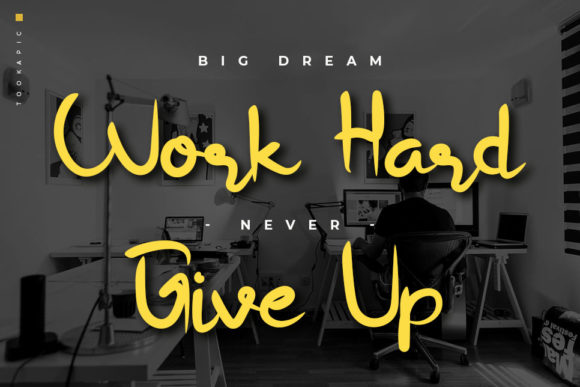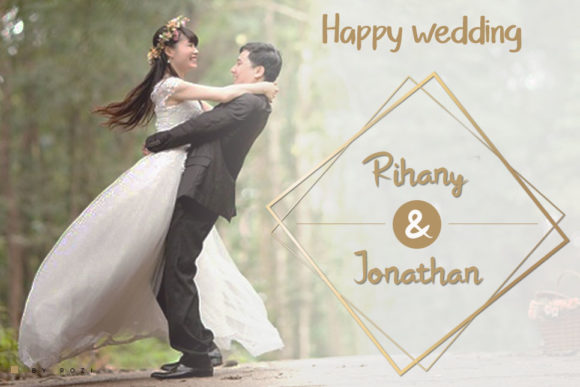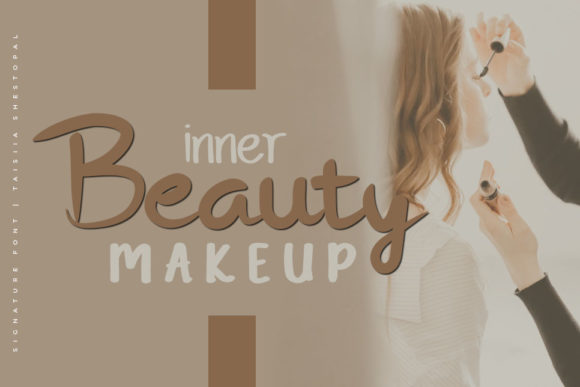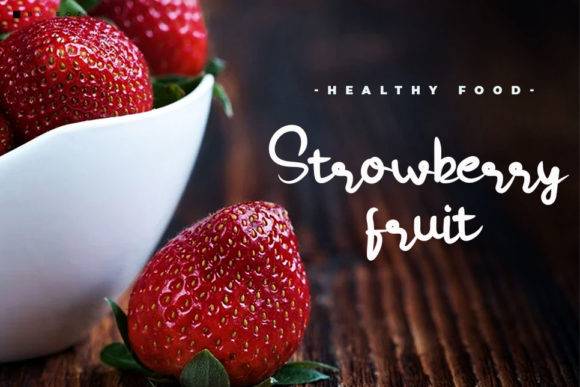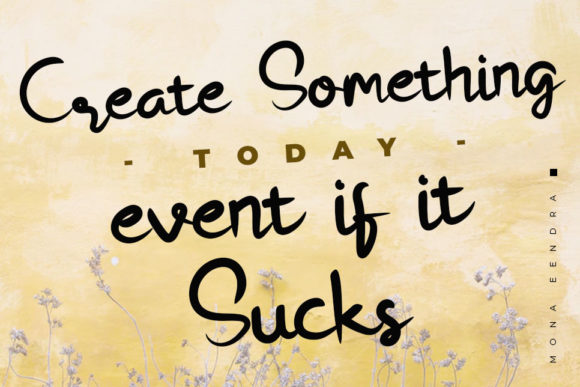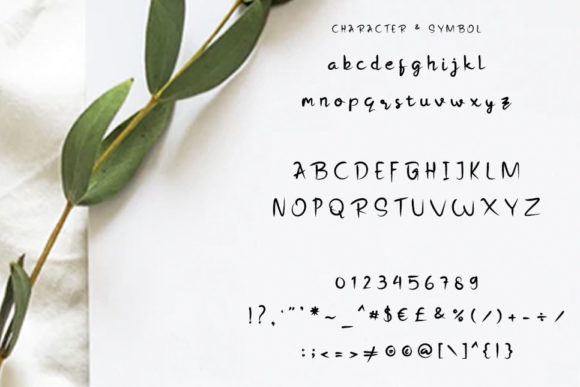
The Magic of Beautiful Typography
Have you ever stared at a beautiful piece of calligraphy, mesmerized by the flowing lines and elegant curves? That’s exactly the kind of magic that the Big Swash Font aims to bring to your designs. As a creative, you know that typography can make or break a project, and with Big Swash Font, you’ll have the perfect tool to add a touch of whimsy and sophistication to your work.
Big Swash Font is a carefully crafted script font that combines timeless elegance with authentic calligraphy, making it the perfect choice for designers who want to create original and outstanding designs. With its classic style and friendly feel, Big Swash Font is sure to add a unique touch to your projects, whether you’re working on a branding campaign, a wedding invitation, or a social media graphic.
Big Swash Font Key Features
- Unique Characteristics: The font features a unique, swash-like design with intricate details and flourishes, adding a touch of elegance and sophistication to any text.
- Language Support: Big Swash Font supports a wide range of languages, including Latin, Cyrillic, and Greek scripts, making it a versatile choice for international designs.
- Font Weight: The font comes in a range of weights, from Light to Extra Bold, allowing designers to choose the perfect weight to match their design’s tone and style.
Big Swash Font Review
Big Swash Font is a showstopper, and I mean that literally – it’s a swashy, playful font that’s perfect for adding some whimsy to your designs ✨. I love how it can add a touch of elegance and sophistication to headings and titles. The font’s unique connection points and curved lines make it feel very organic and natural.
However, there are some limitations to consider ⚠️. For one, the font can be a bit overwhelming if used in large blocks of text. It’s best to use it sparingly, like in titles or short paragraphs. Additionally, the font may not be the best choice for body text, as it can be difficult to read in smaller sizes.
Here are some key points to consider:
- Great for headings and titles
- Perfect for adding a touch of whimsy and elegance
- May be overwhelming in large blocks of text
- Not ideal for body text in smaller sizes
Overall, I think Big Swash Font is a fantastic addition to any designer’s toolkit. With its unique style and versatility, it’s sure to add some visual interest to your designs. Just be sure to use it wisely and in moderation.
Tips for Getting the Most Out of Big Swash Font
Use Big Swash Font to add a touch of elegance and sophistication to your designs.
Experiment with different font sizes and colors to create a unique look.
Pair Big Swash Font with other elegant fonts to create a harmonious design.
Use Big Swash Font for:
Editorial and publishing projects